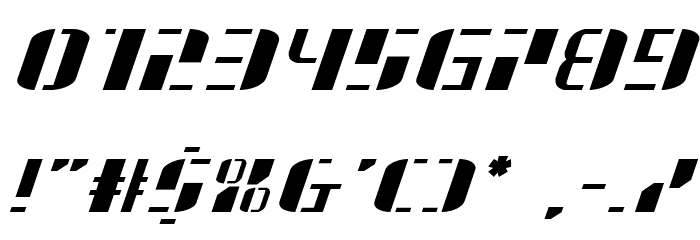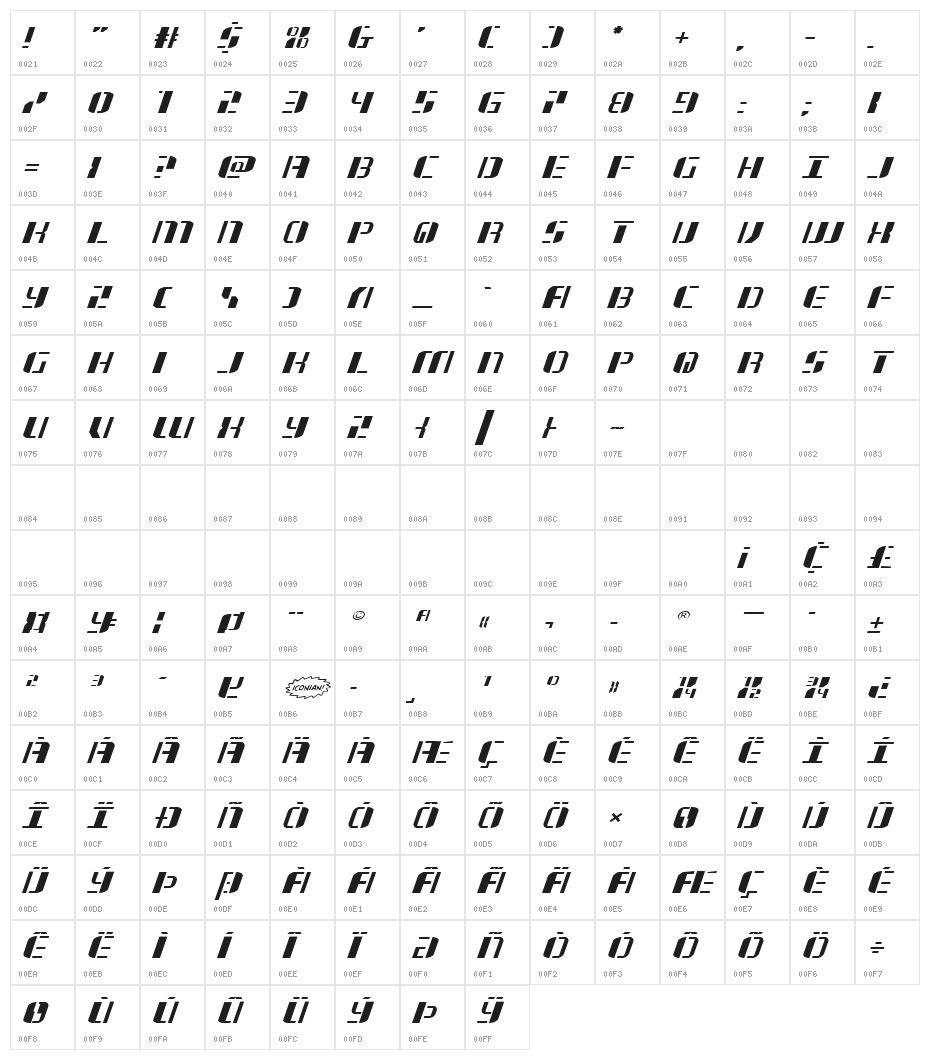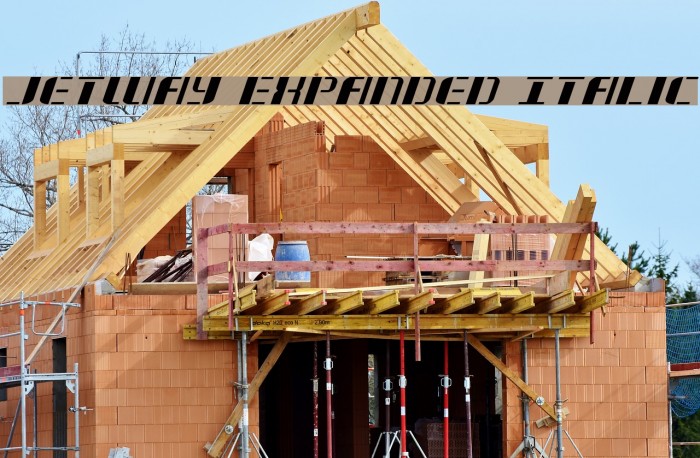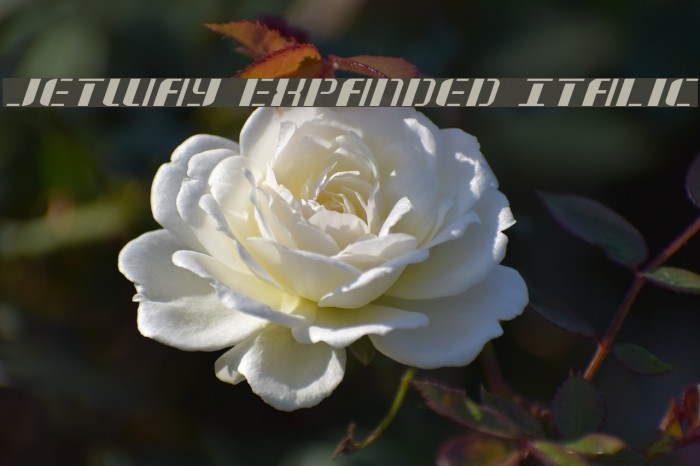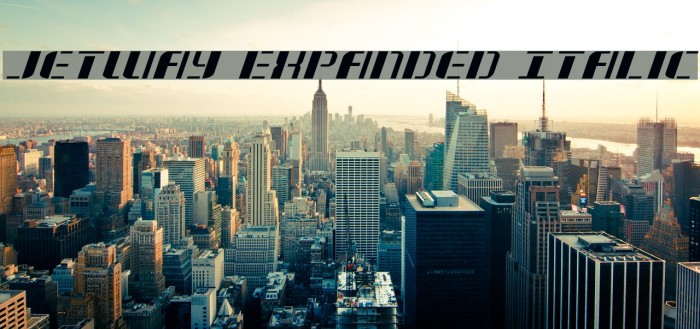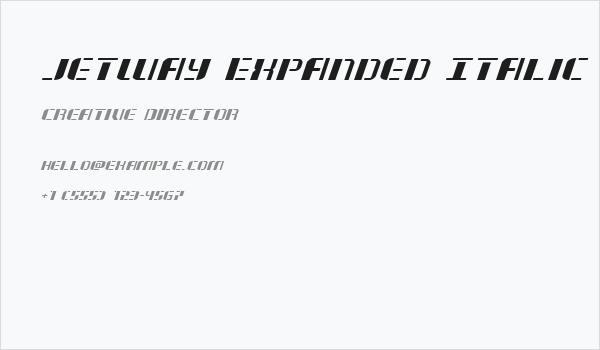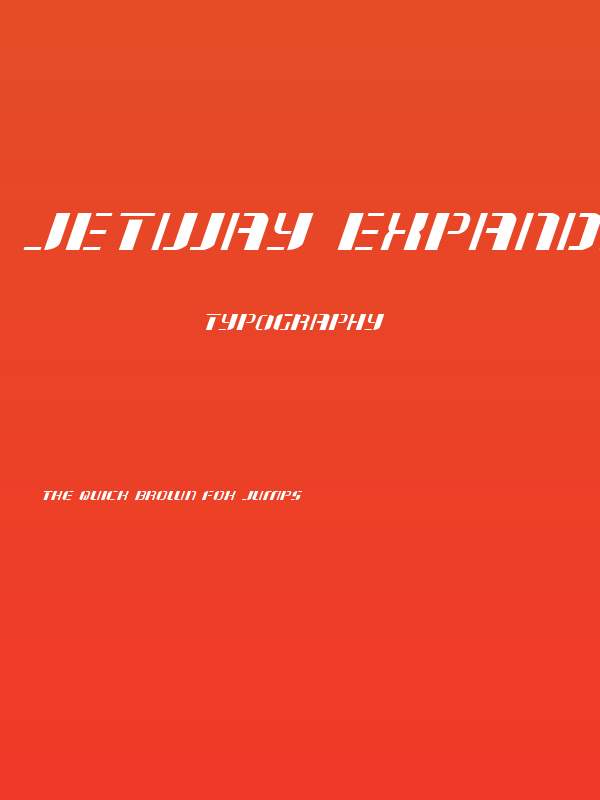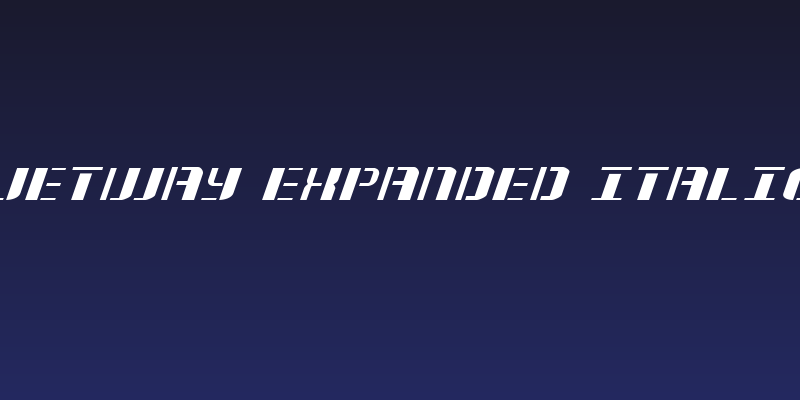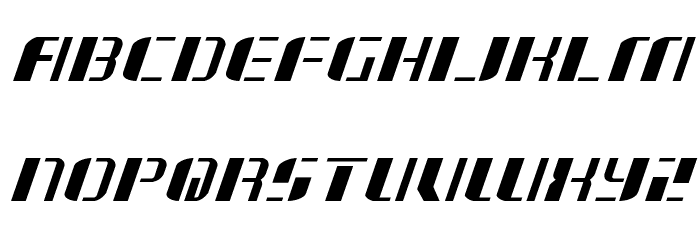
Jetway Expanded Italic Font
Jetway Expanded Italic Description
This font features a bold and dynamic design with a distinctly modern flair. The characters are expanded and italicized, creating a sense of movement and speed. The strokes are thick and consistent, with a high contrast between the filled and open spaces, giving it a futuristic and industrial feel. The angular cuts and sharp edges contribute to its edgy and contemporary appearance, making it stand out in any design. The spacing between characters is tight, enhancing its compact and cohesive look.